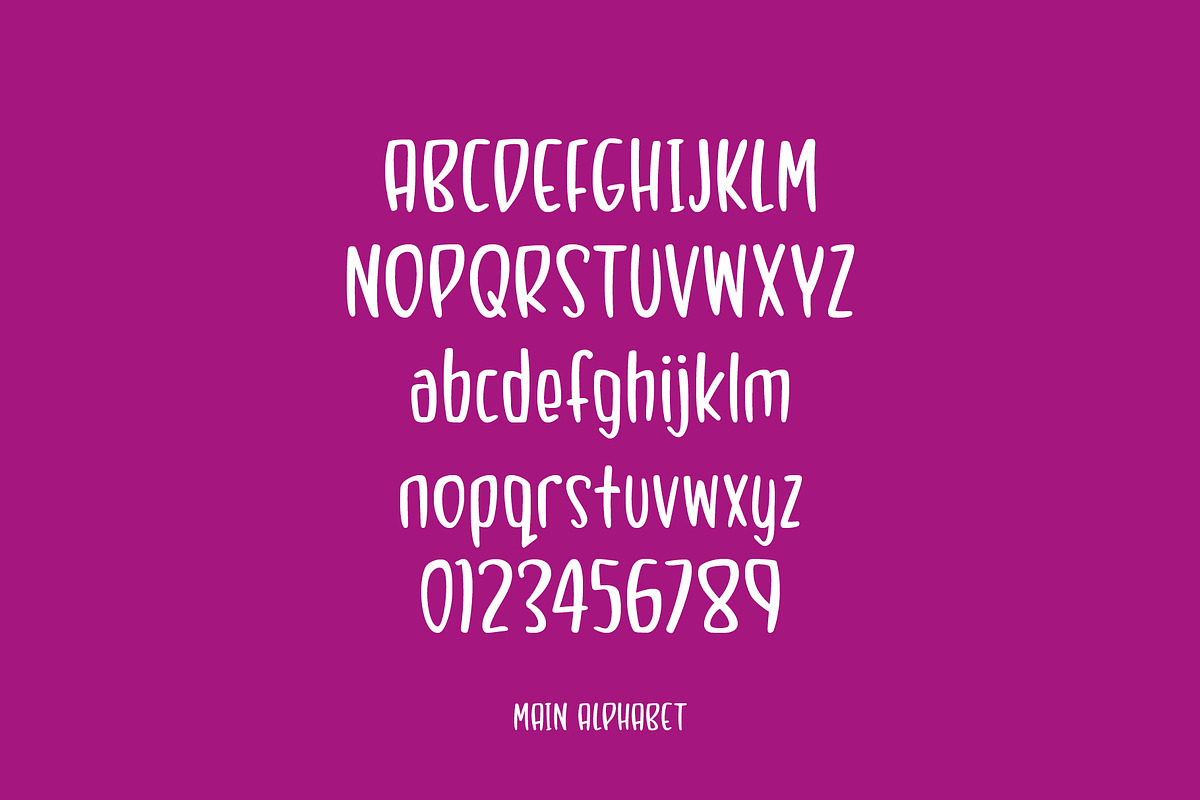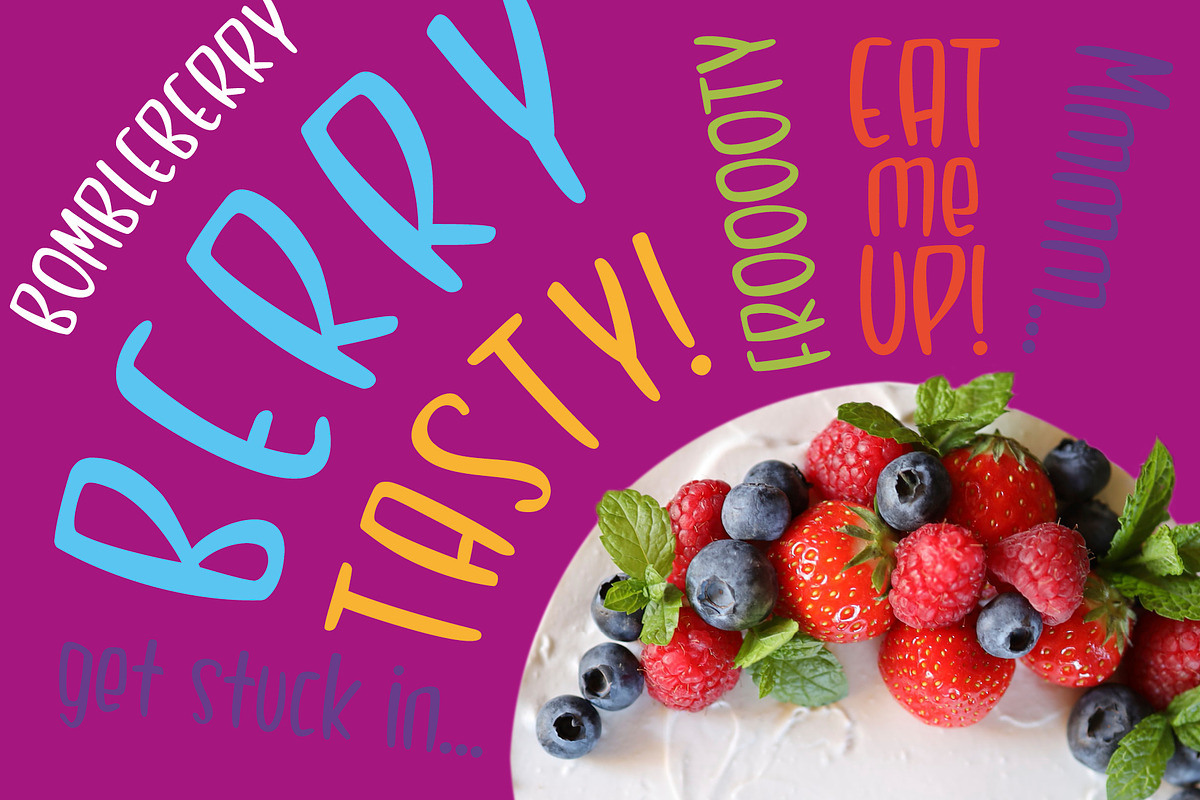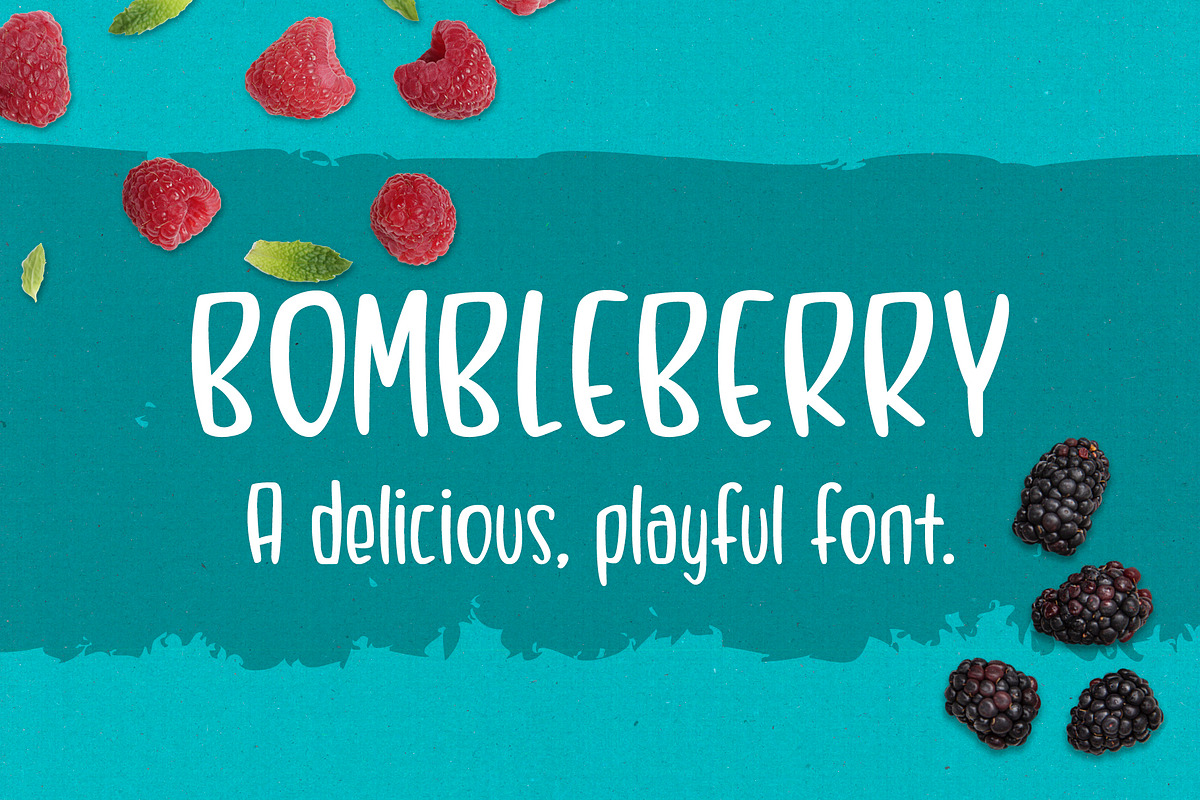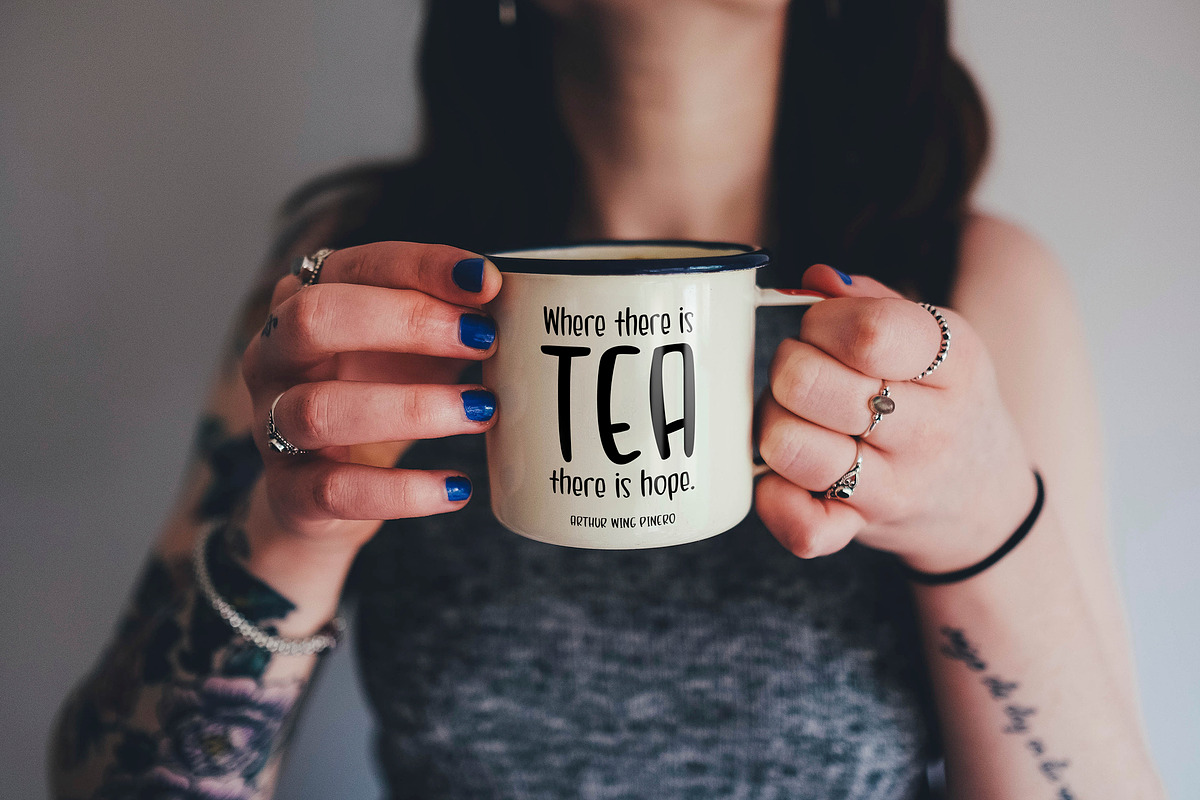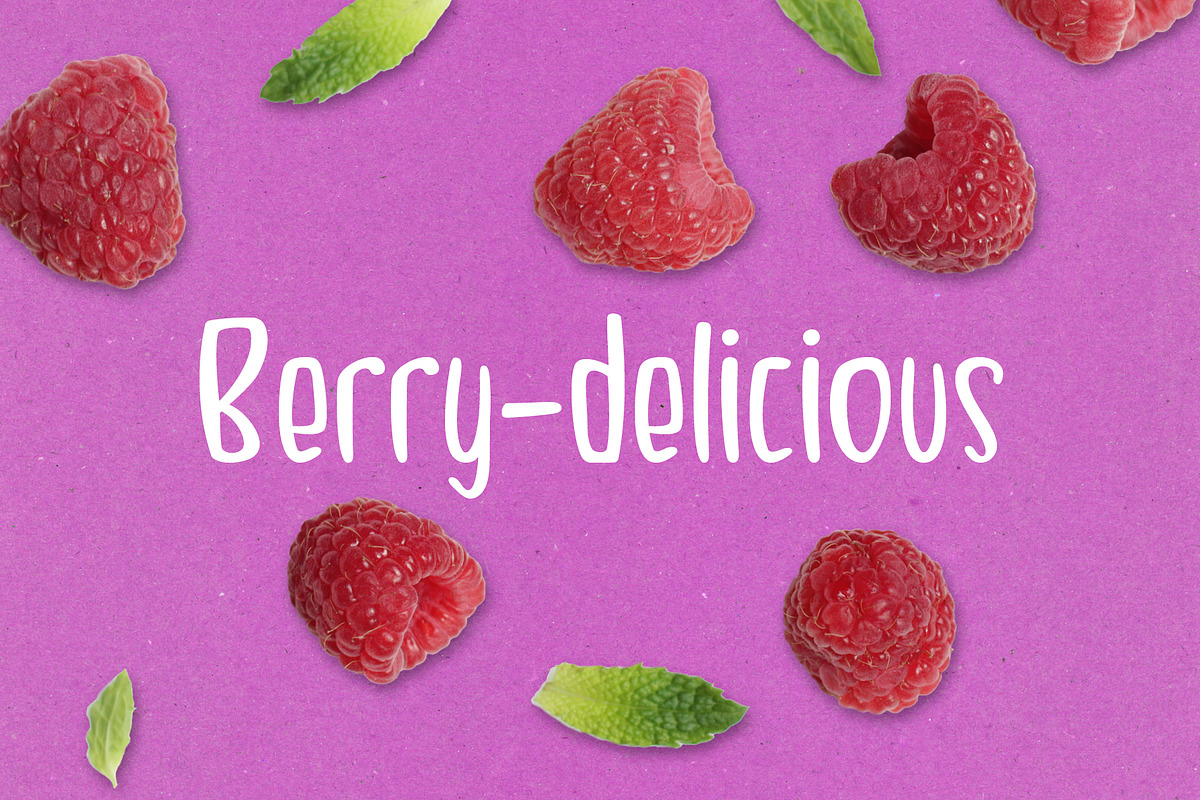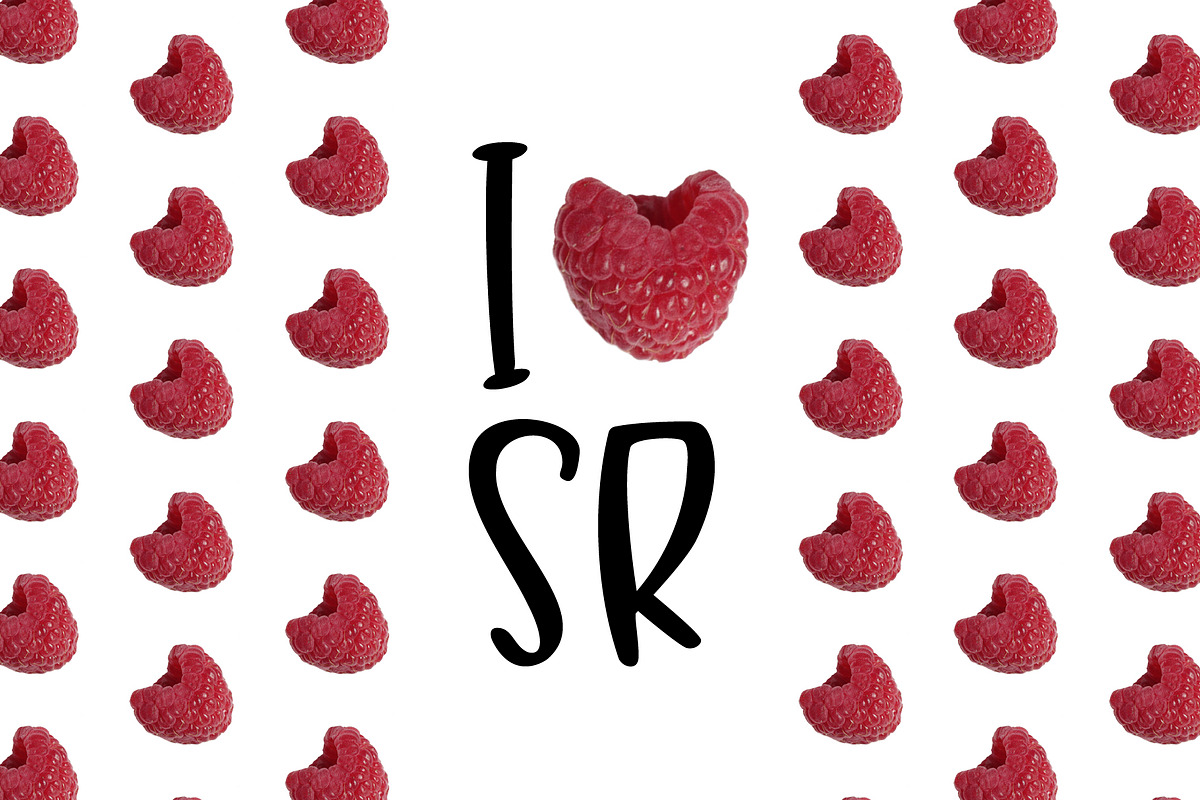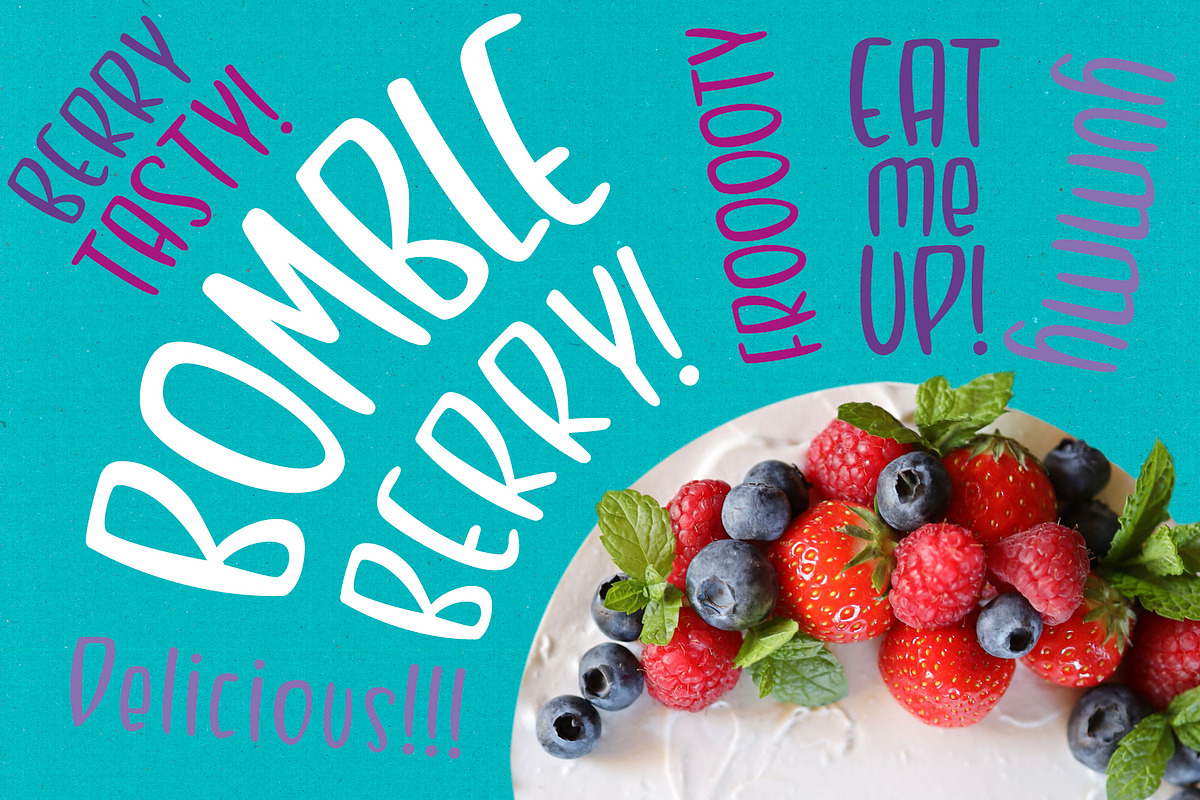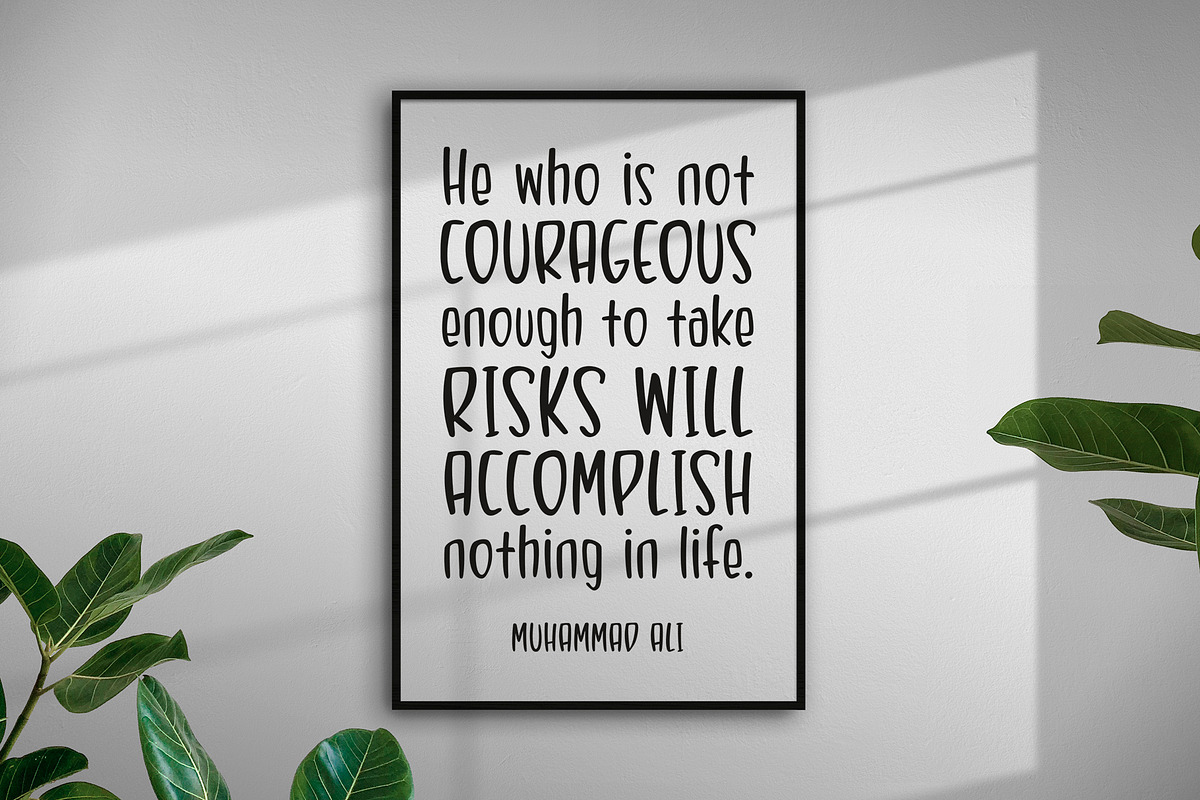
Bombleberry - a playful & tasty font
A delicious fruity font. Playful and fun. Very tasty indeed. A little bit quirky. Full of character and unique.
Perfect for everything from branding to crafting. This versatile font is great for merchandise, products, quotes, editorial, posters or whatever design you have in mind. This is a great font for crafters.
Complete with uppercase, lowercase and special characters. Over 300 glyphs including full European support including western, central and south eastern European glyphs.